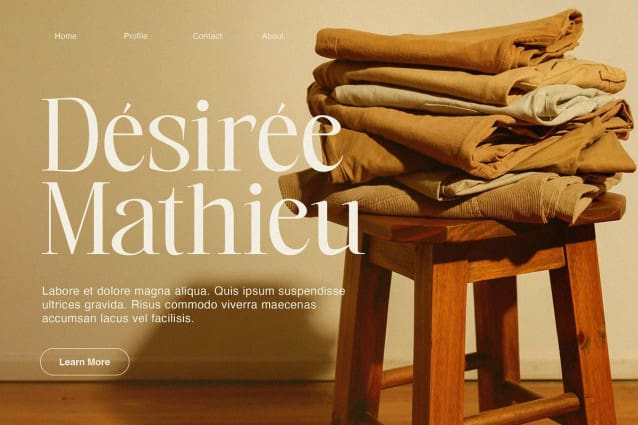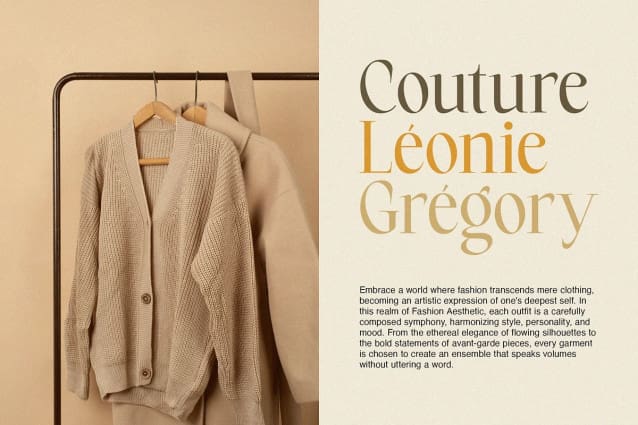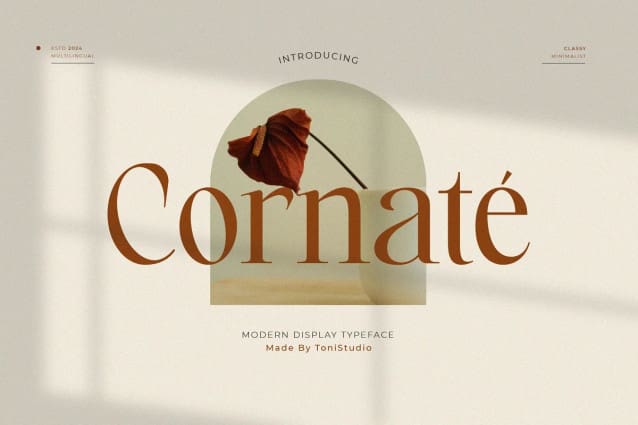
Cornate Font
Cornate Font a serif type combined with an elegant, modern and classy style. This type of font is very suitable for your various needs such as branding projects, logos, business cards, wedding designs, social media posts, advertisements, product packaging, design products, labels, photography, watermarks, invitations, stationery and any project, created with a high level of legibility. You will not be disappointed if you buy this font!!